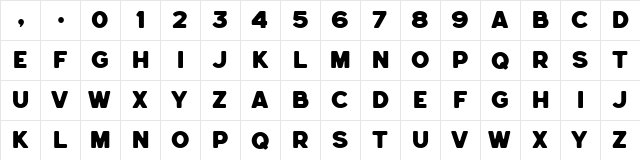
Hemisphers Bold Sans Regular
| Foundry | Runsell Studio |
| Designer | Edi Gunawan |
Design Context for Hemisphers Bold Sans Typeface
Hemisphers Bold Sans is a composed and adaptable typeface that performs quietly and consistently across a wide range of design contexts. The heavy weight commands attention and anchors typographic hierarchies.